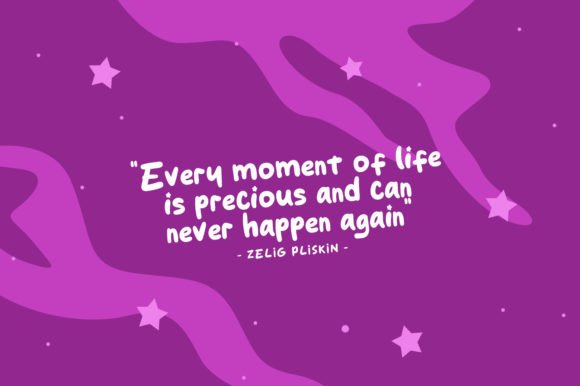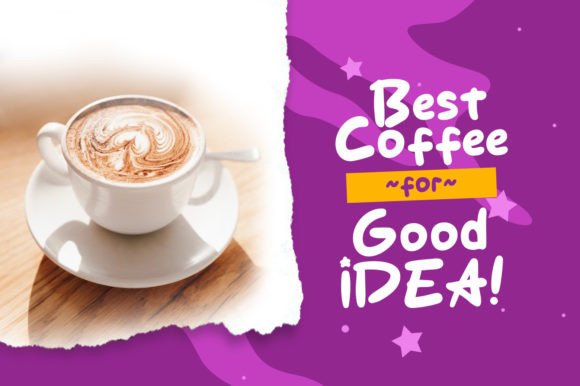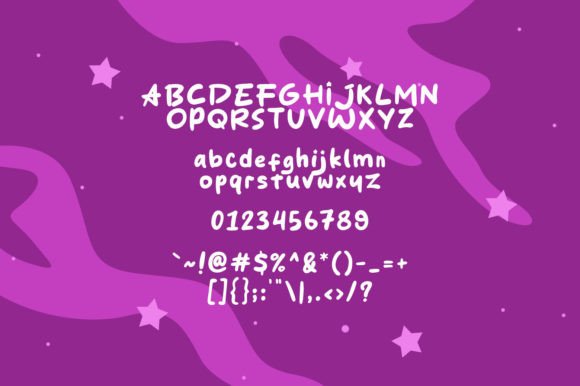
Introduction to Jingle Star Font
Have you ever been working on a creative project, pouring your heart and soul into it, and then suddenly, you stumble upon that perfect font that makes everything click? That’s exactly what happens when you discover the Jingle Star Font. This modern and fancy handwritten font is a game-changer for designers, and we’re excited to share its awesomeness with you.
Whether you’re designing posters, logos, magazines, book covers, banners, or anything in between, the Jingle Star Font is the perfect design resource to elevate your work. Its versatility and high-quality design make it an ideal choice for a wide range of creative projects. Plus, with a transparent background, you can easily layer it with other design elements to create stunning visual effects.
Key Features of Jingle Star Font
- High-quality design: Jingle Star Font offers a unique and festive aesthetic perfect for creative projects.
- Transparent background: This feature allows for easy integration with various design elements and backgrounds.
- Large character set: Jingle Star Font includes a comprehensive set of characters, including uppercase and lowercase letters, numbers, and special symbols.
- High-resolution design: Designed at 300 DPI, Jingle Star Font is suitable for use in various design contexts, from web design to print materials.
- Perfect for the holiday season: Jingle Star Font is an ideal choice for creative projects related to Christmas, New Year’s Eve, or other winter-themed events.
Honest Review: Jingle Star Font
I recently had the chance to work with the Jingle Star Font, and I must say it’s been a game-changer for my creative projects. As a designer, I’m always on the lookout for high-quality design resources that can elevate my work, and this font definitely delivers. ✨
- Unique and Festive: The Jingle Star Font is perfect for projects that require a touch of festive flair. Its playful and whimsical style is sure to bring a smile to anyone’s face.
- Transparent Background: The font’s transparent background allows for easy layering and customization, making it a versatile tool for any design project.
However, there are a few limitations to consider. ⚠️ For example, the font may not be suitable for formal or professional projects, as its playful style may not be taken seriously. Additionally, the font may not be compatible with all design software.
Overall, I’m impressed with the Jingle Star Font and would highly recommend it to designers working on creative projects. Its unique style and high-quality design make it an excellent addition to any design resource library.
Tips for Getting the Most Out of Jingle Star Font
Jingle Star Font is perfect for a variety of creative projects, including invitations, posters, and social media graphics. It’s also great for branding and marketing materials, such as business cards and logos. With its high-quality design and transparent background, Jingle Star Font is a valuable design resource for any project.